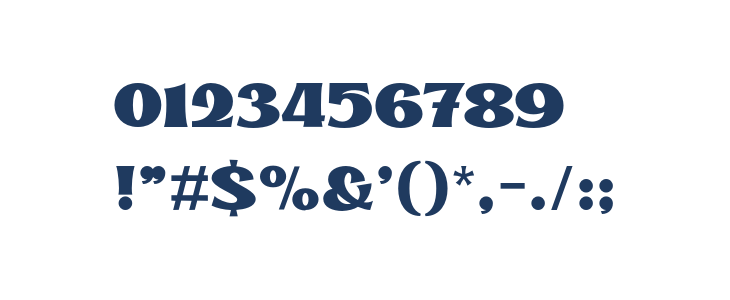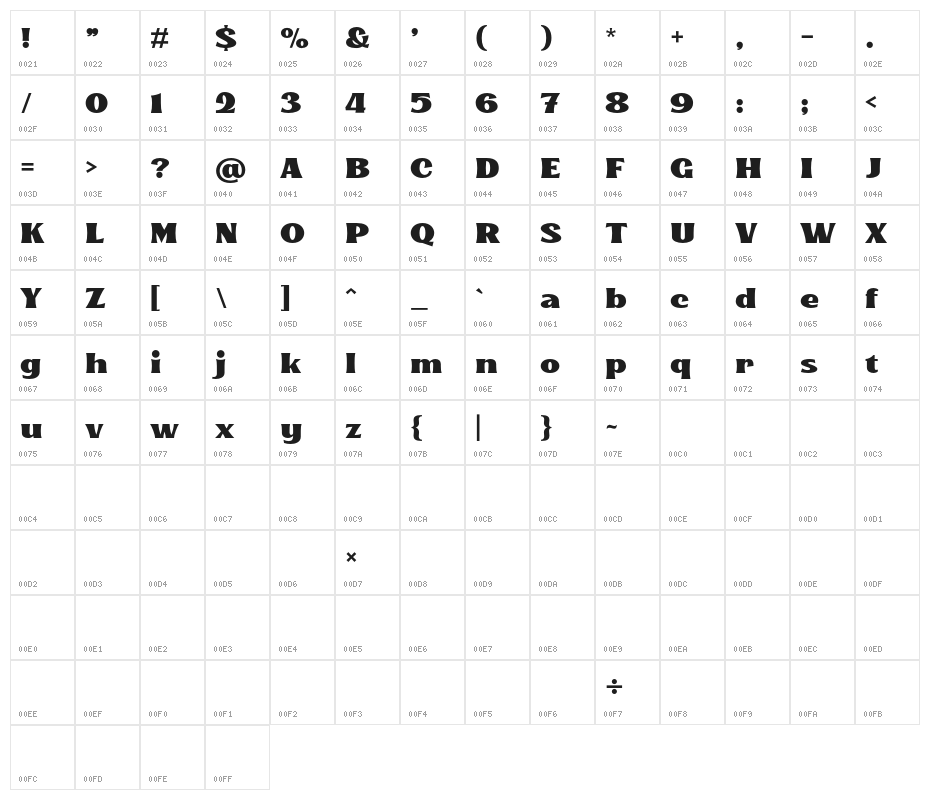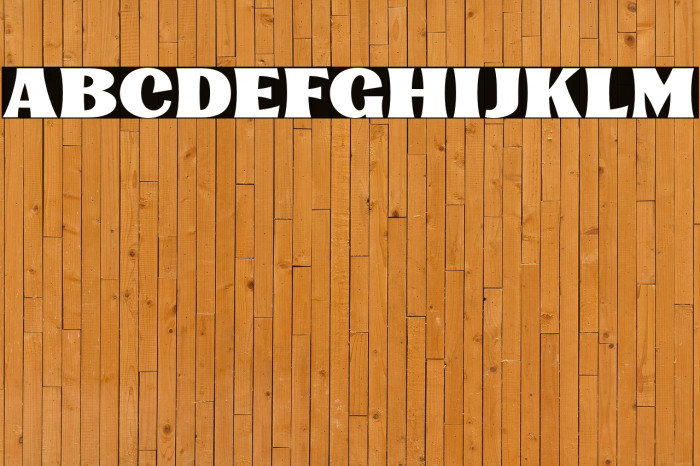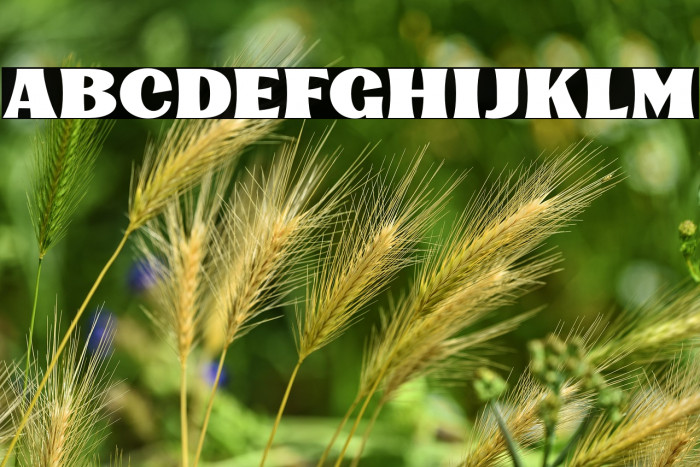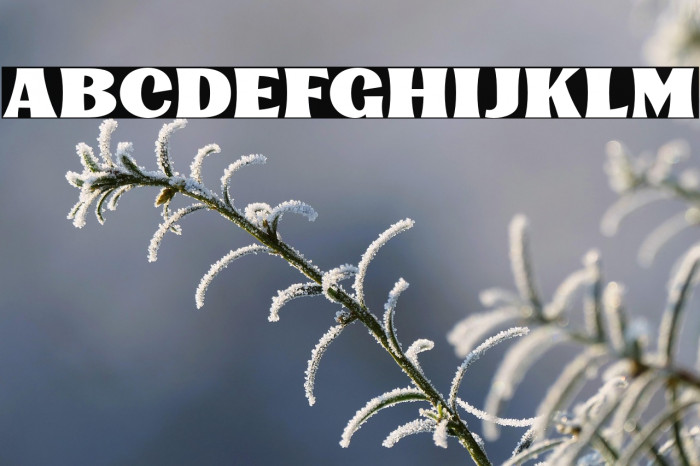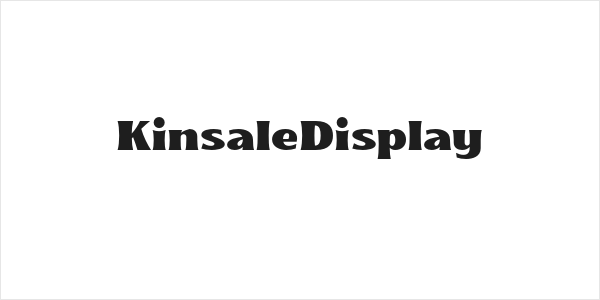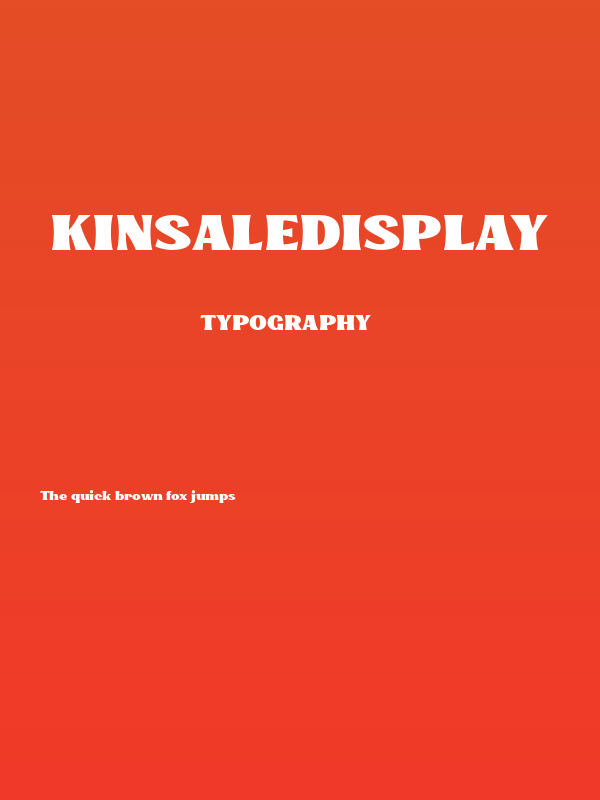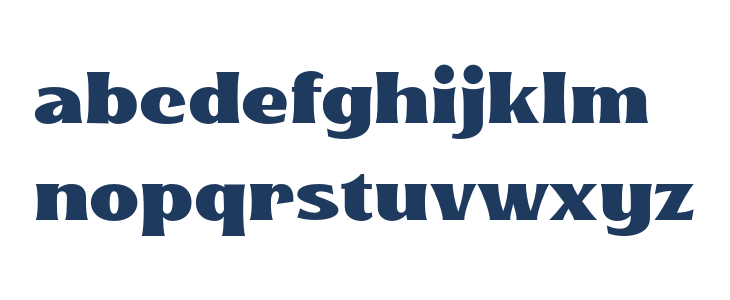
KinsaleDisplay Font
KinsaleDisplay Description
This font features bold, dramatic strokes with a strong presence, making it ideal for attention-grabbing headlines and titles. The characters are well-defined with a slight curvature that adds a touch of elegance and flair. The uppercase letters are particularly striking, with a robust and commanding appearance, while the lowercase letters maintain a consistent style that complements the overall design. The numbers and special characters are crafted with the same boldness, ensuring uniformity across all text elements. This font's unique style makes it suitable for projects that require a bold statement, such as branding, posters, and advertising materials.